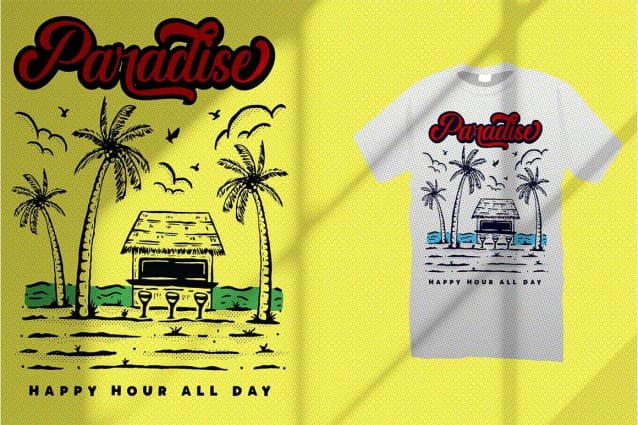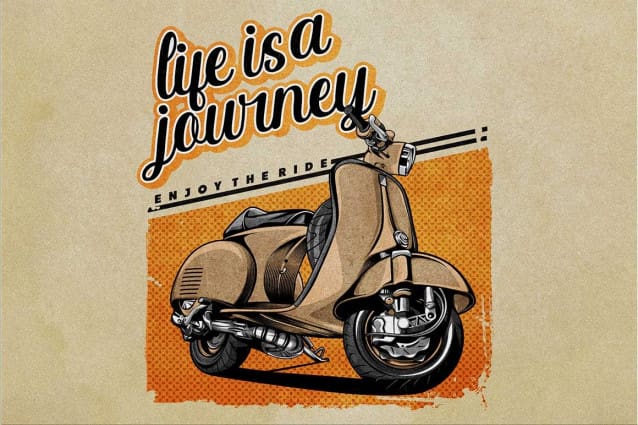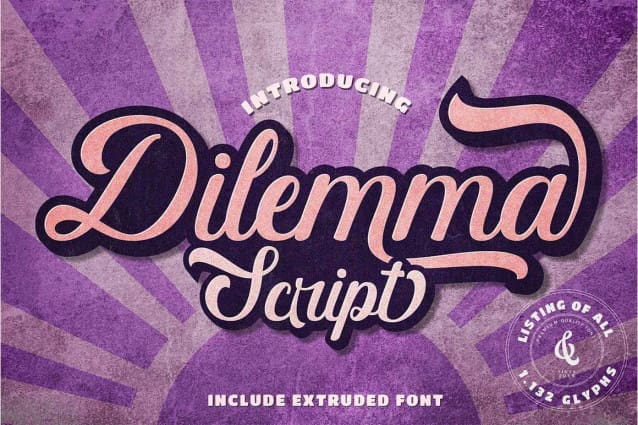
Dilemma Script Font
Dilemma Script Font, a bold and vintage-inspired script font that will transport you to a bygone era. Ideal for a wide range of design projects, DilemmaScript is perfect for logos, logotypes, t-shirts, vintage badges, retro quotes, branding, packaging, posters, and more.
This font features PUA encoding, giving you easy access to all the glyphs and ligatures, allowing you to easily create unique and eye-catching designs with a touch of nostalgia. Whether you’re working on a vintage-inspired project or just want to add a touch of old-world charm, Dilemma Script is a must-have addition to your font library.